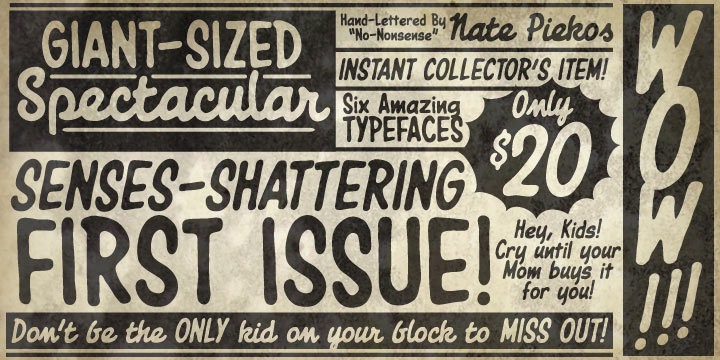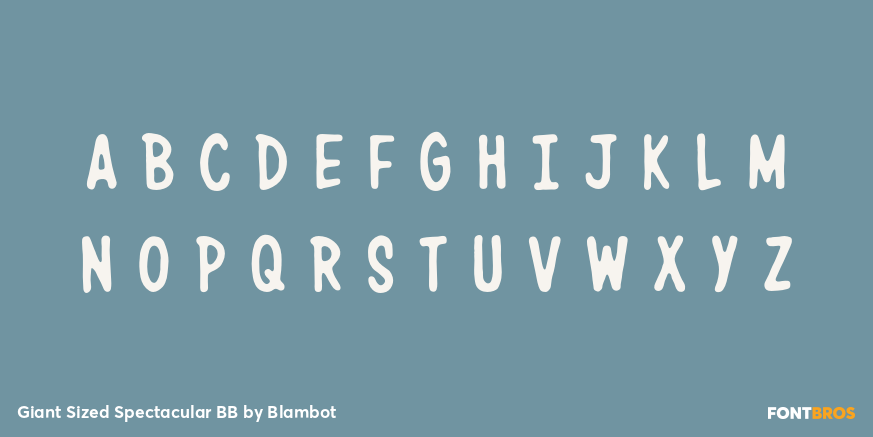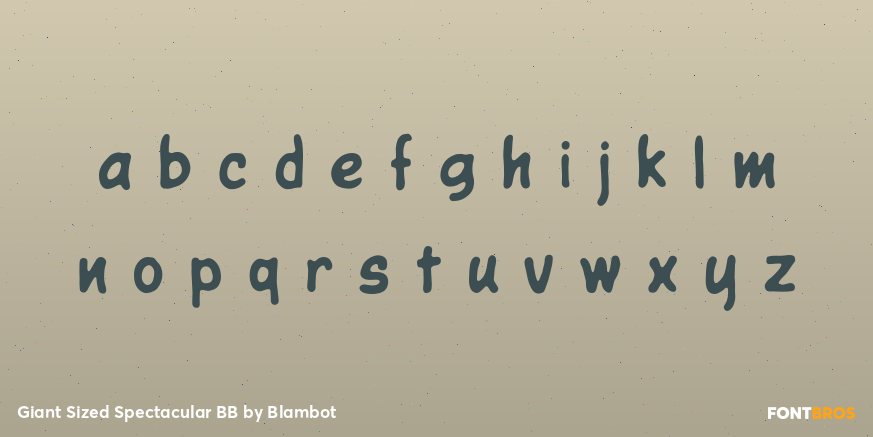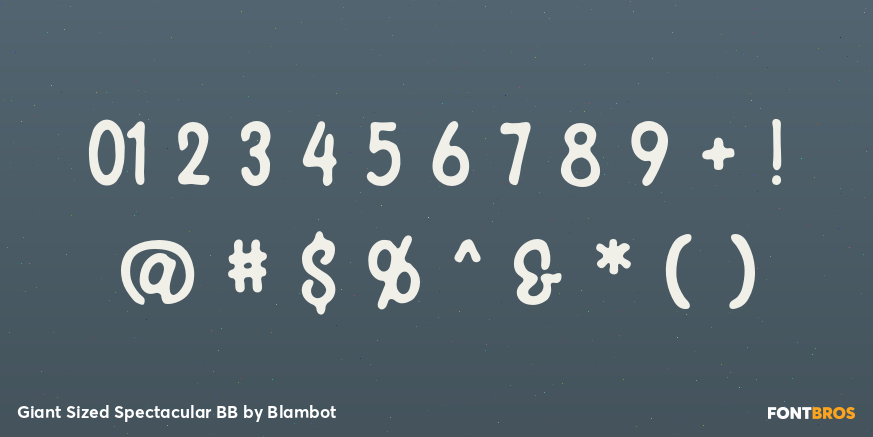
Giant Sized Spectacular BB
Font Family by Blambot
Hand-lettered by Nate Piekos and inspired by 60s-era comic book cover copy and creator credits.
6 fonts included ( Std., Std. Italic, Caps, Caps Italic, Script, Script Italic) with a slew of European characters!